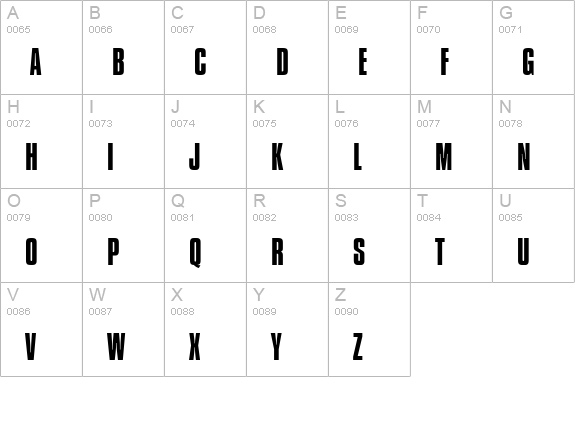
Compressed-Regular is the standard, neutral, condensed-width variant in the Compressed typeface family \xE2\x80\x94 well suited to general body text, paragraphs, and standard typographic work.
The Compressed-Regular font is a sleek and modern typeface designed to save space while maintaining readability. Its condensed letterforms make it perfect for projects where space is limited, such as posters, flyers, and headlines. The clean lines and sharp edges of this font exude a sense of professionalism and sophistication. Best of all, the Compressed-Regular font is completely free to download at FontsMarket.com. Whether you're a designer looking to add a contemporary touch to your work or a business owner in need of a stylish typeface for your branding materials, this font is a versatile and practical choice. Don't miss out on this opportunity to enhance your projects with the Compressed-Regular font, available for free at FontsMarket.com.